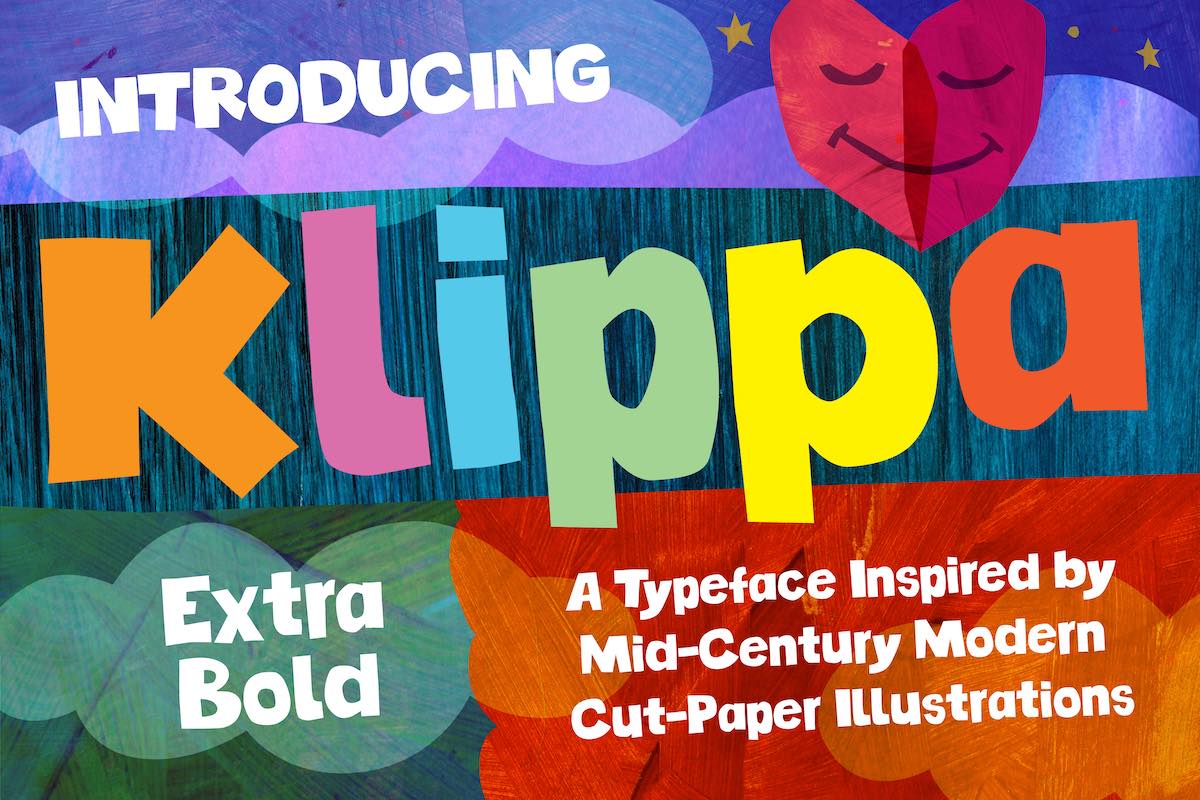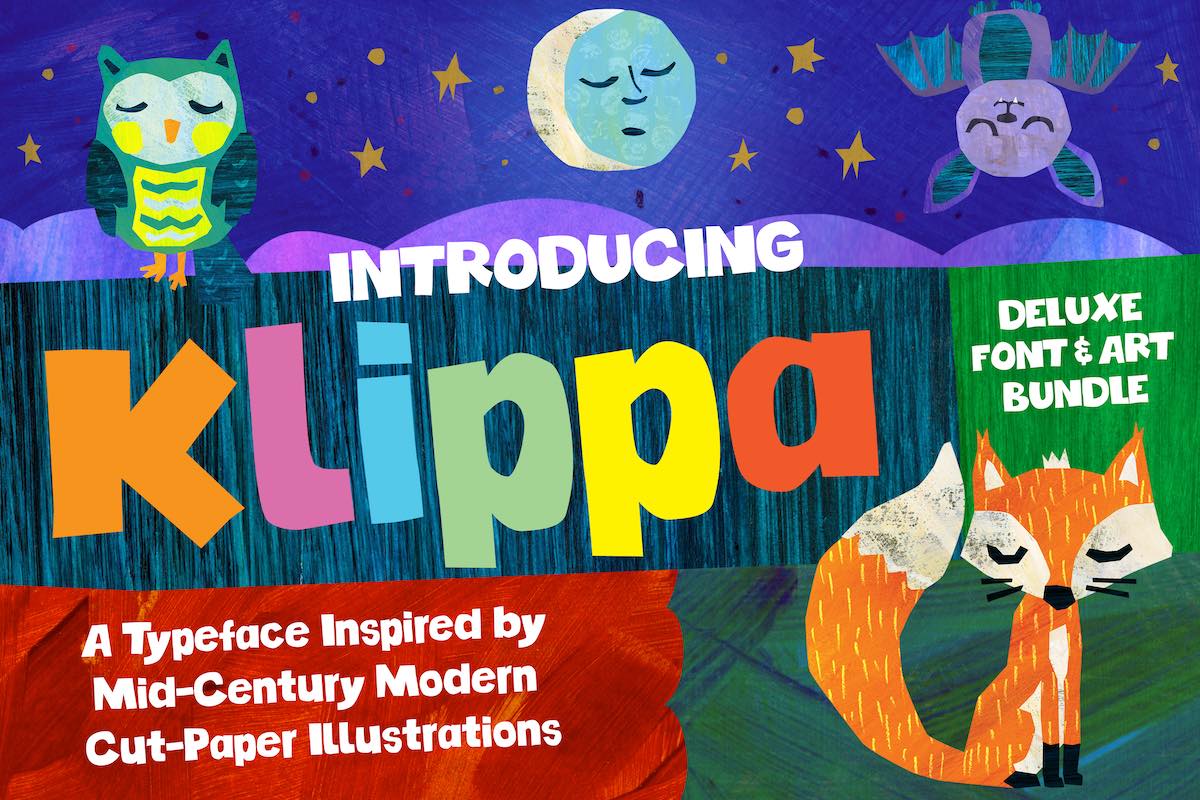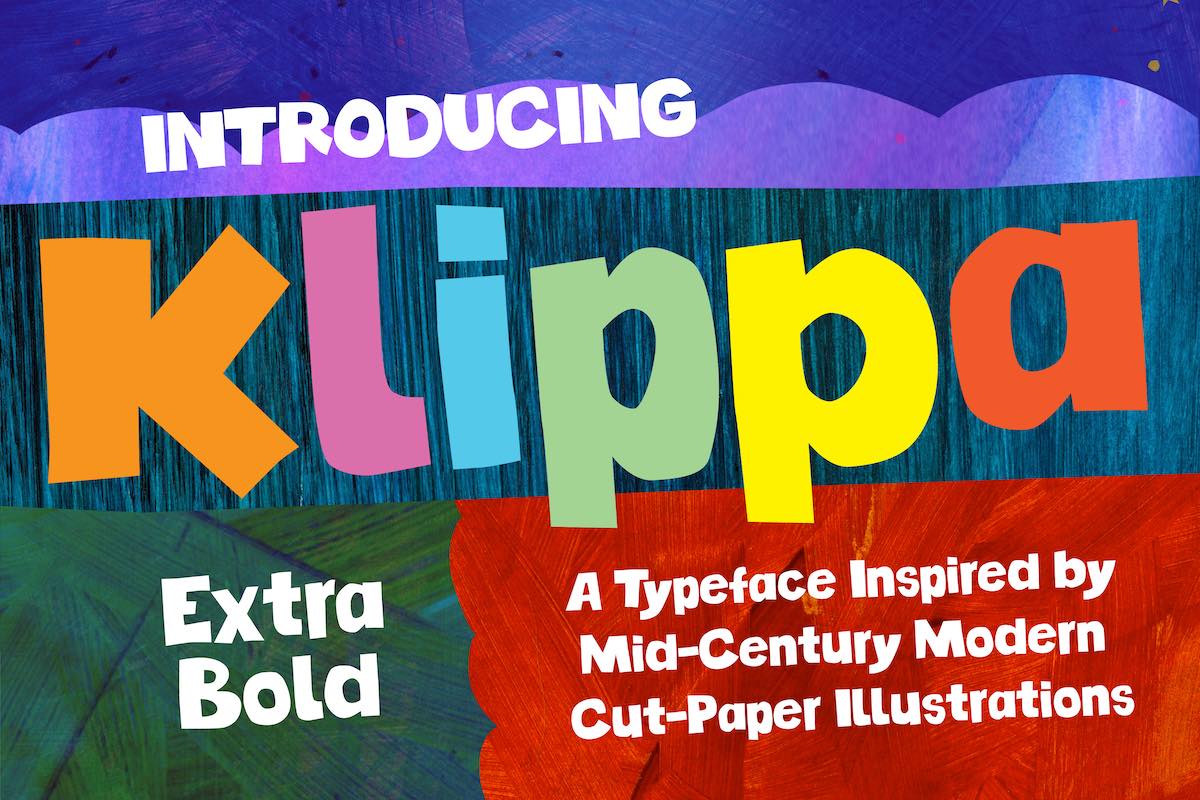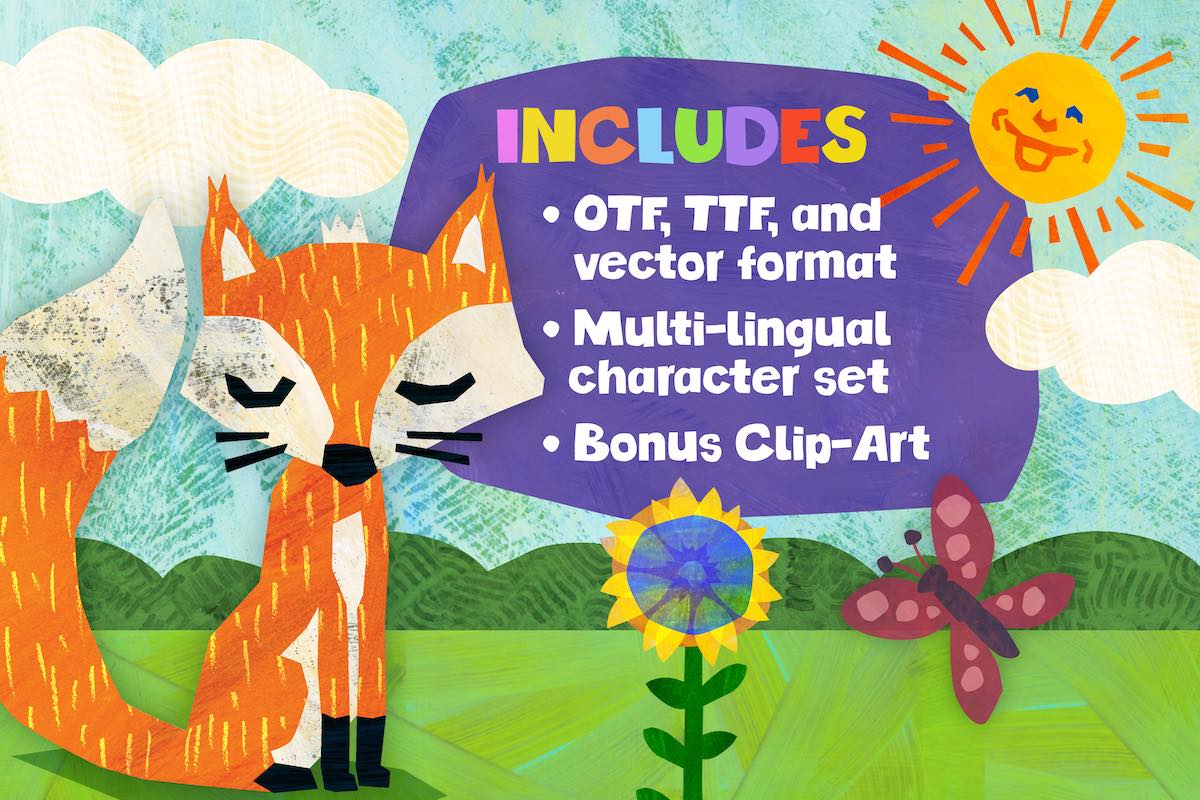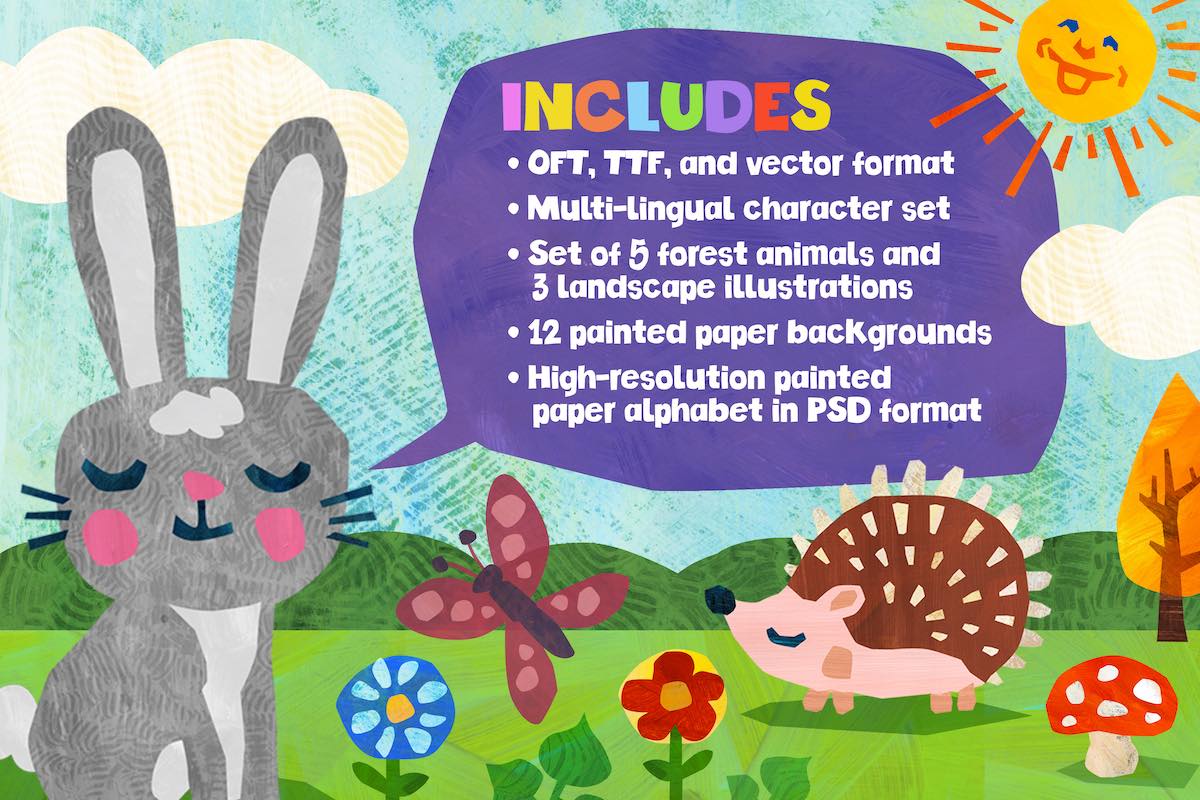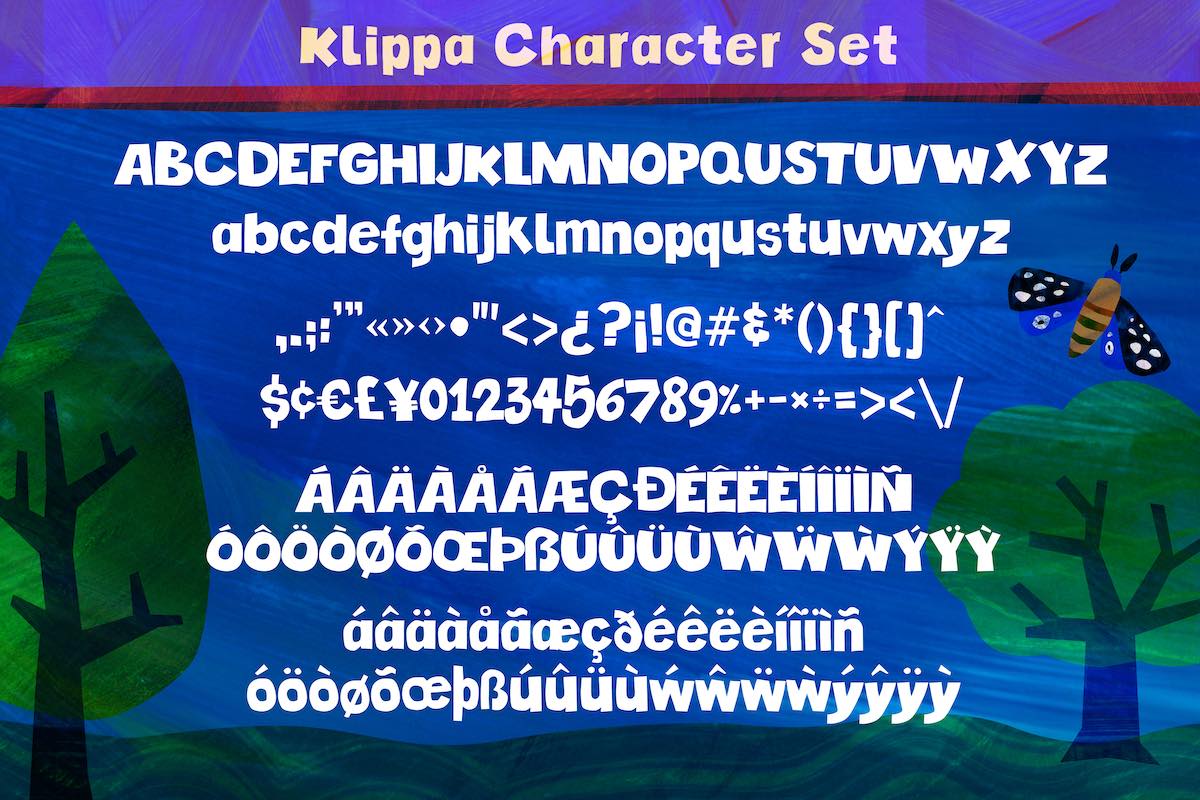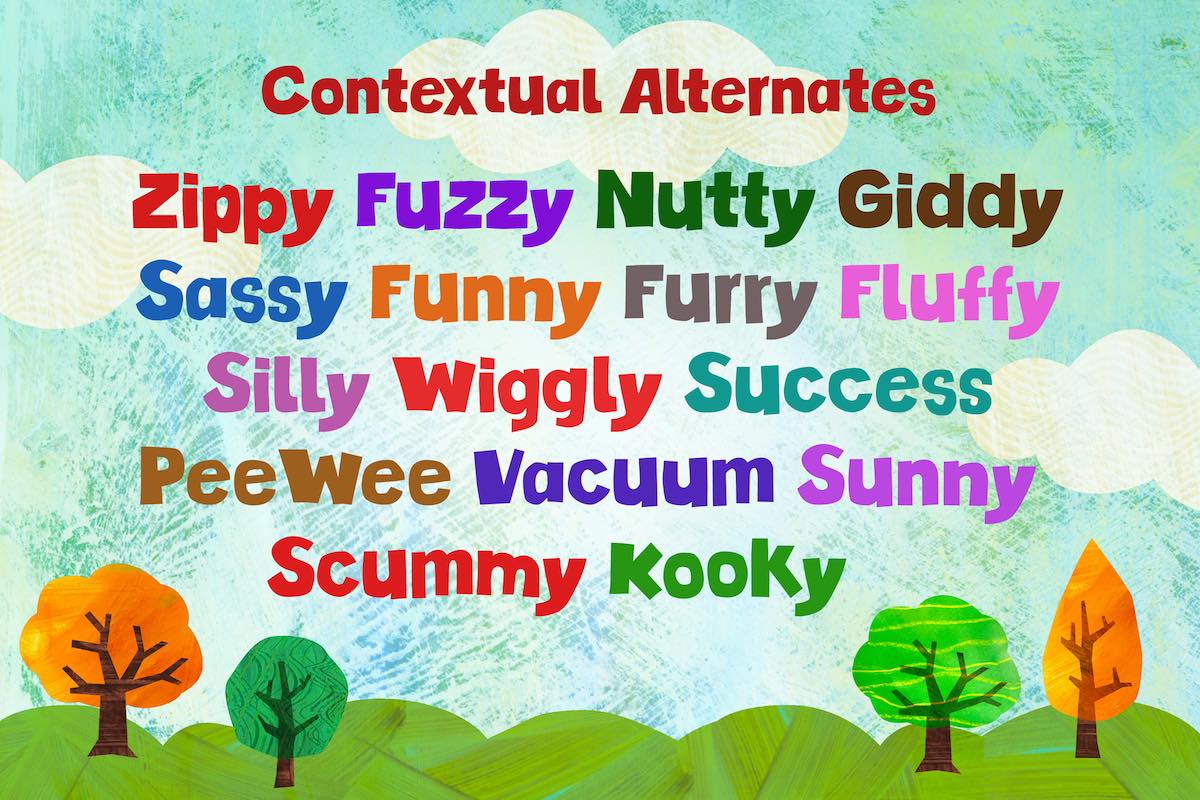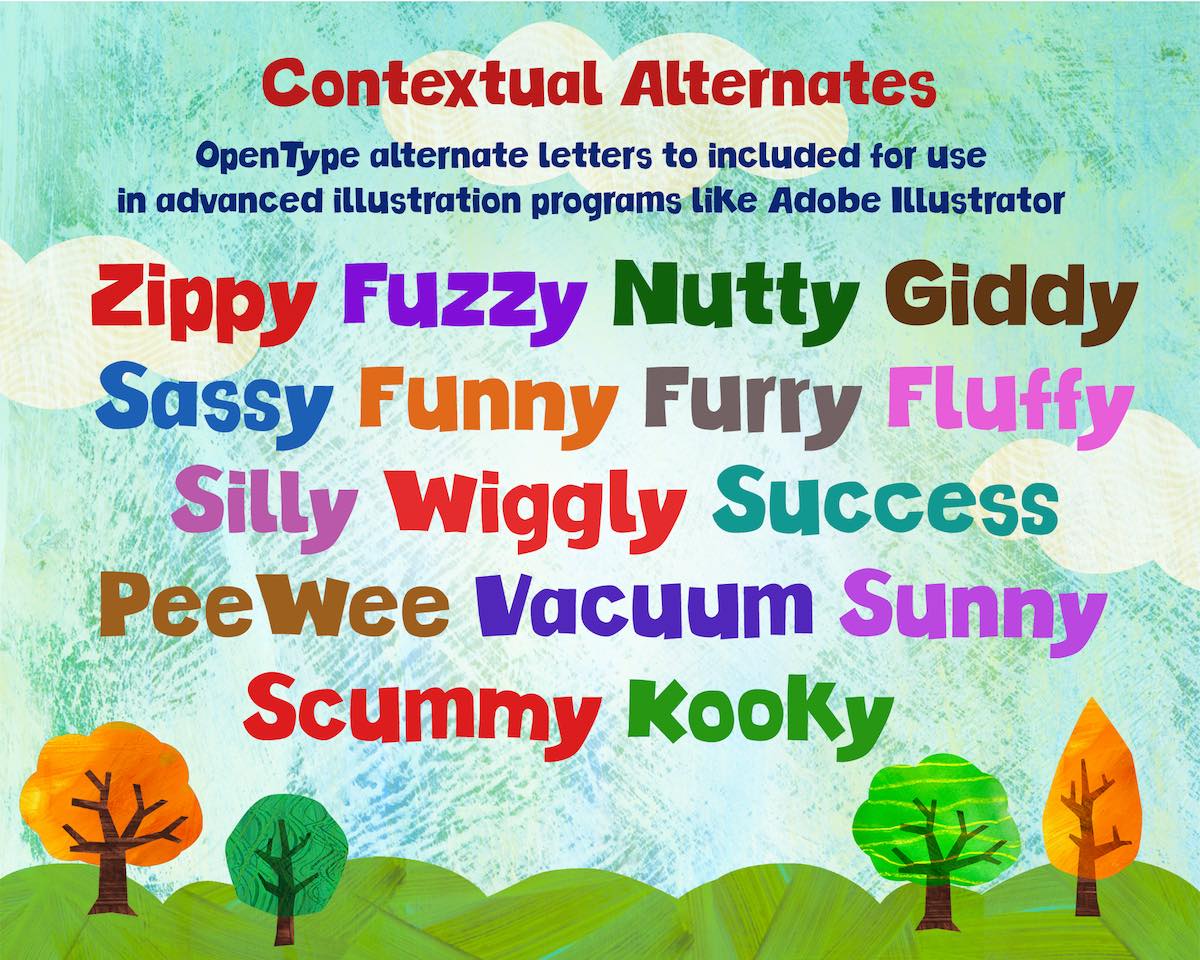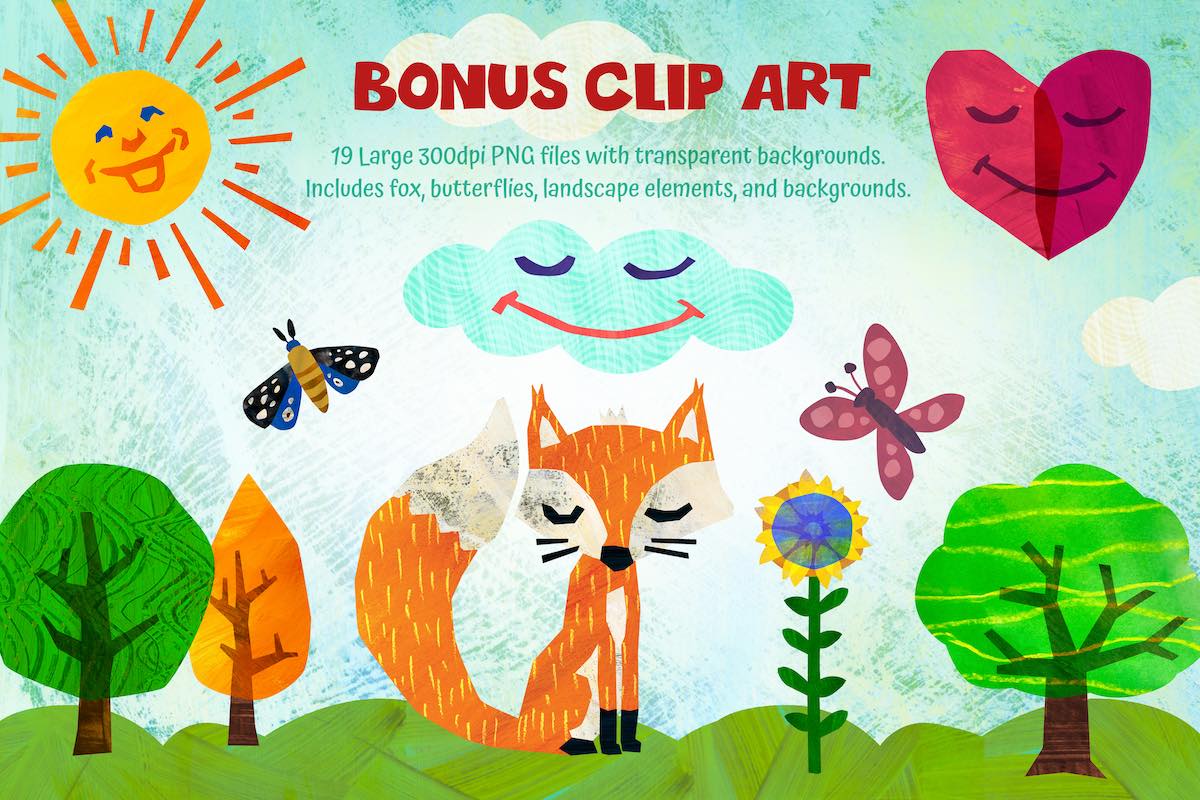
Klippa Typeface & Deluxe Art Bundle
Make Your Designs Pop with Klippa: Bold, Fun, and Brimming with Mid-Century Charm!
Step into the whimsical world of Klippa, a typeface that captures the magic of mid-century modern cut-paper illustrations. With its extra-bold, hand-crafted charm, Klippa is perfect for adding a playful retro vibe to your designs. Whether you're working on posters, children’s books, or branding, Klippa makes a bold statement while bringing a touch of nostalgic fun.
• Extra-Bold Typeface: Make your designs stand out with thick, eye-catching letterforms inspired by mid-century paper art.
• Multilingual Character Set: Create global-friendly designs with an extensive range of characters, including contextual alternates for advanced typography.
Klippa is more than just a font – it’s a bundle bursting with artistic inspiration and practical tools to elevate your design work.
• Multilingual character set with contextual alternates for Adobe Illustrator and other advanced software
• Retro-inspired branding projects
• Children’s books and playful editorial spreads
• DIY crafts, invitations, and greeting cards
• Mid-century design enthusiasts looking for an authentic and fun touch